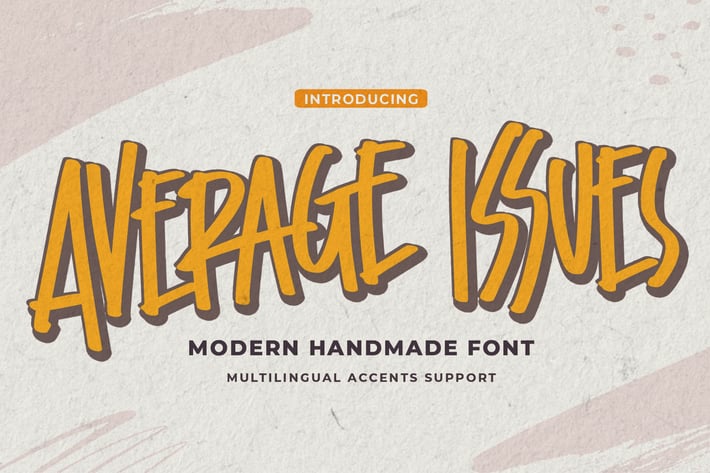
Average Issues - Modern Handmade Font
Average Issues - Modern Handmade Font with a natural style and dramatic movement. Crafted manually with love and passion, This font is great for your next creative project such as logos, printed quotes, invitations, cards, product packaging, headers, Logotype, Letterhead, Poster, Label, and etc.
This handmade font will make your design has a beautiful natural touch for each details. It is perfect for any design project as Invitation, book cover, craft or any design purposes.
photos, photography overlays, signs, window art, scrapbooking, tags and so much more!